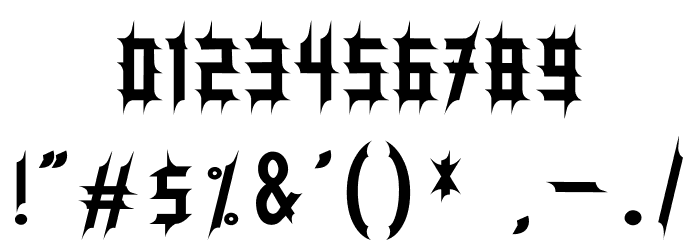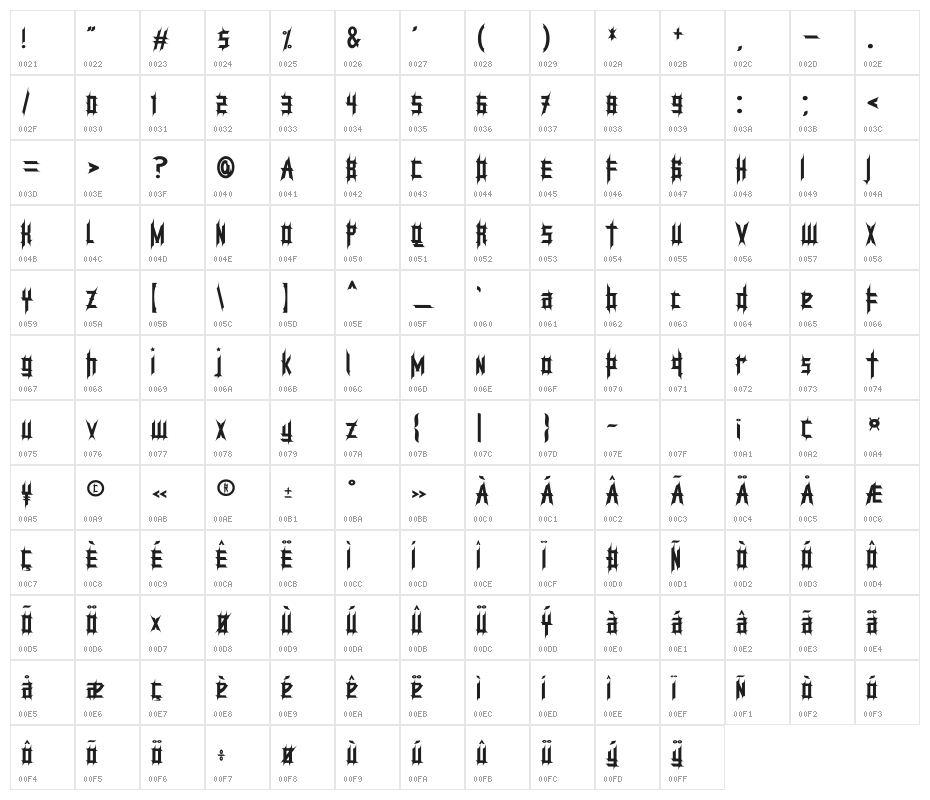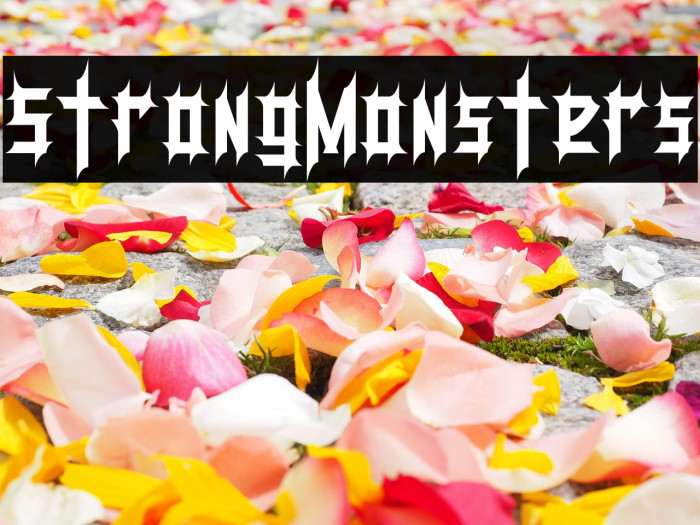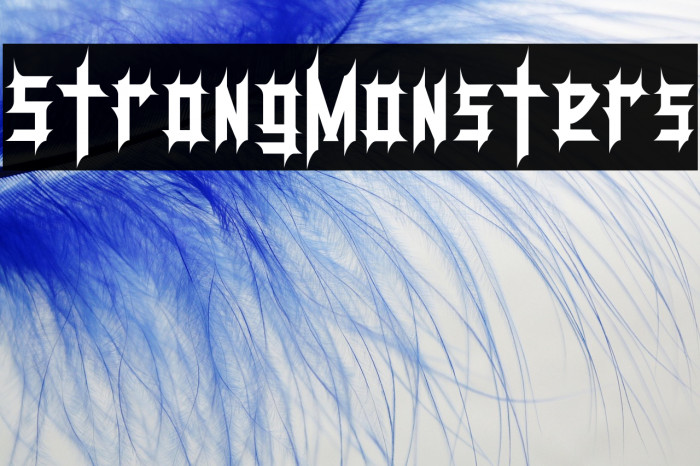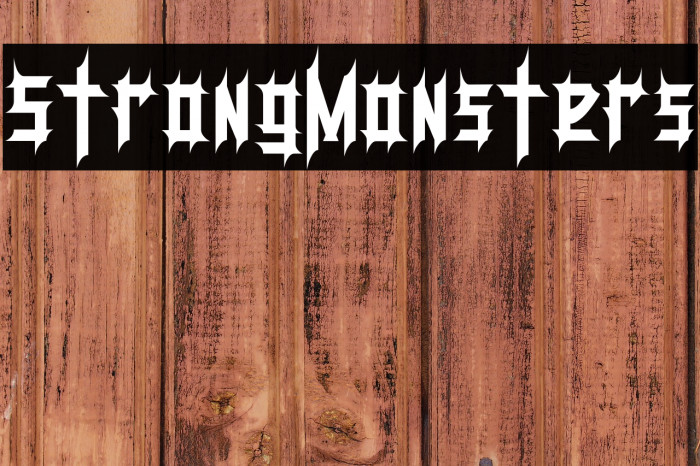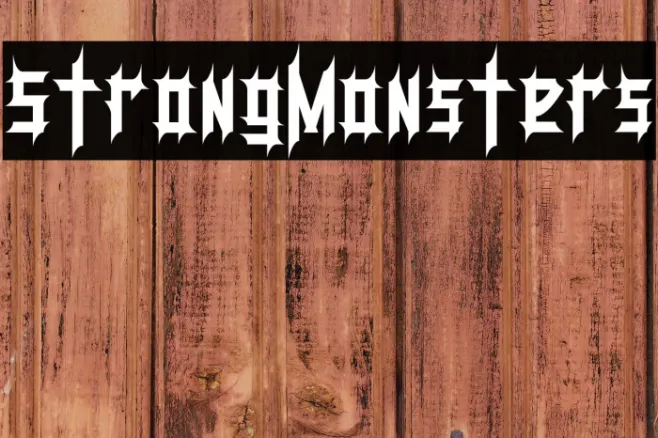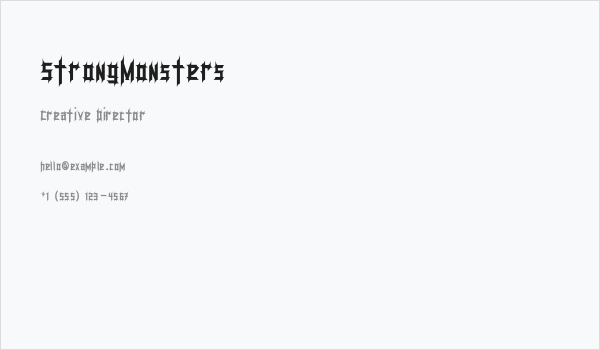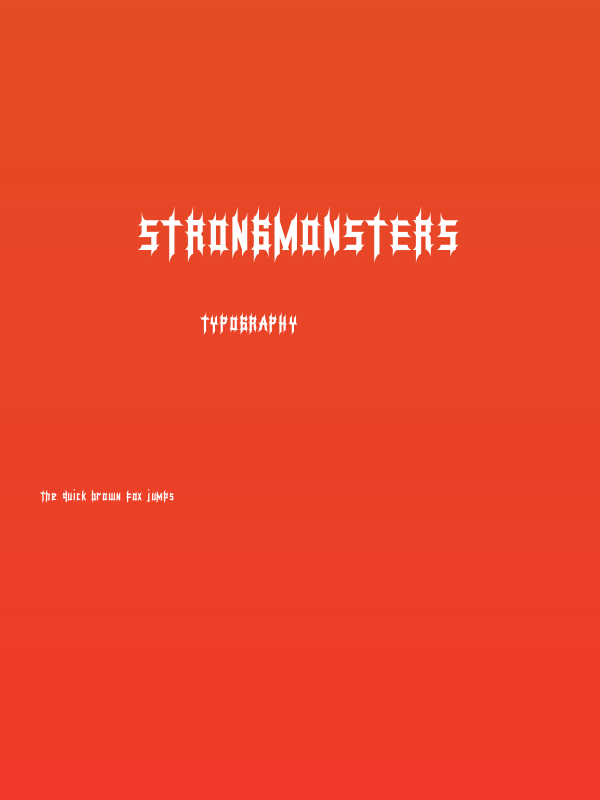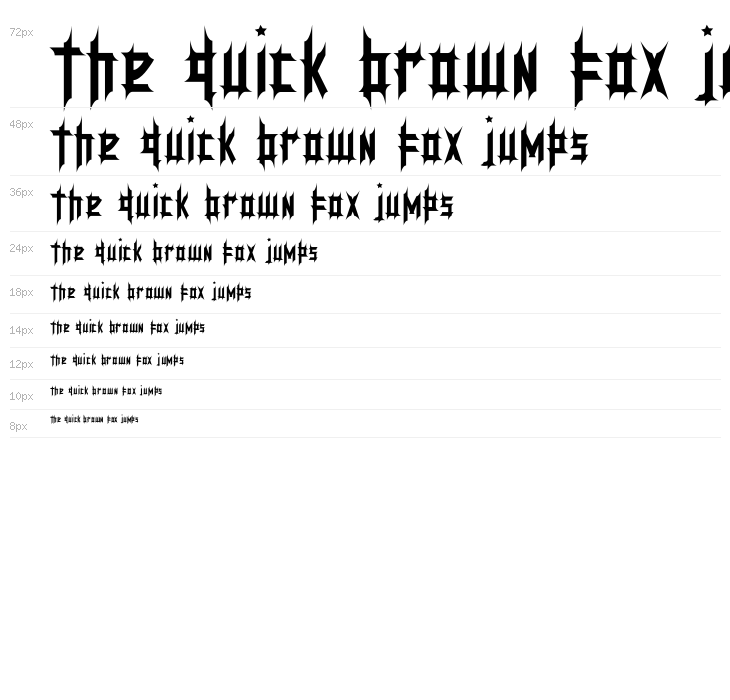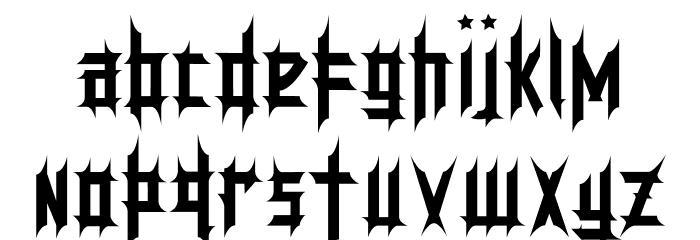
StrongMonsters Font
StrongMonsters Description
This font features a bold and aggressive design with sharp, angular edges and a gothic influence. The uppercase and lowercase letters maintain a consistent style, characterized by pointed serifs and a heavy weight that gives a strong visual impact. The numbers and special characters follow the same aesthetic, ensuring a cohesive look across all glyphs. The font's unique style makes it stand out, with a high contrast between thick and thin strokes that adds to its dramatic appearance.
| Overall Style | Gothic, Decorative |
| Use Case | Logos, Posters, Titles |
| Proposed Projects | Ideal for horror-themed posters, video game titles, Halloween events, and heavy metal band logos. |